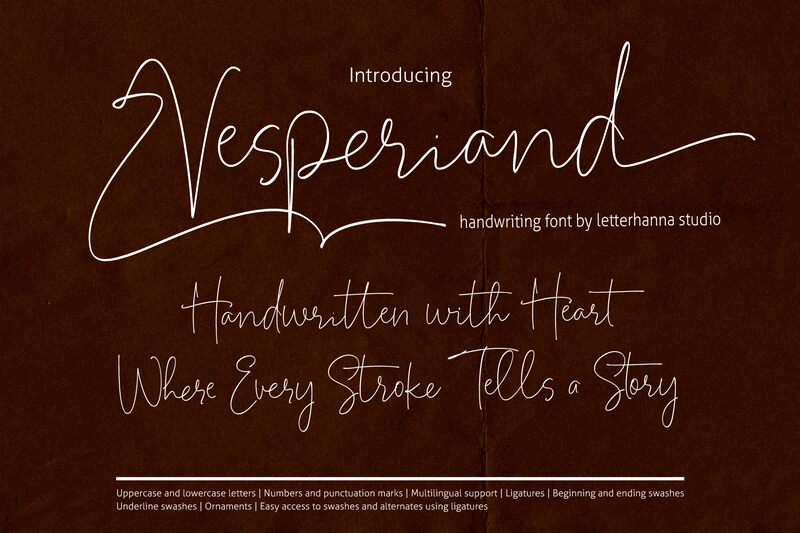
Vesperiand font designed by Letterhanna Type Foundry is a free handwritten font that is expressive and dynamic. The fluid flow of its letters gives it a lovely artistic tone marked with elegance in every curve and extension. Although not rough, this informal font is not the typical neat cursive script. Instead, you are offered a font that is suitable for memorable presentations that won't burden the reader with its load.
This font is a great choice for newsletters and invitations for informal events and occasions like birthday parties, BBQs, and game nights. You can also use it for packaging and branding projects for non-serious businesses and those whose advertisement is mostly for children. Vesperiand can be used in multiple designs for adults as well like beauty and fashion brands. Use it for websites, ads, apps, and more.